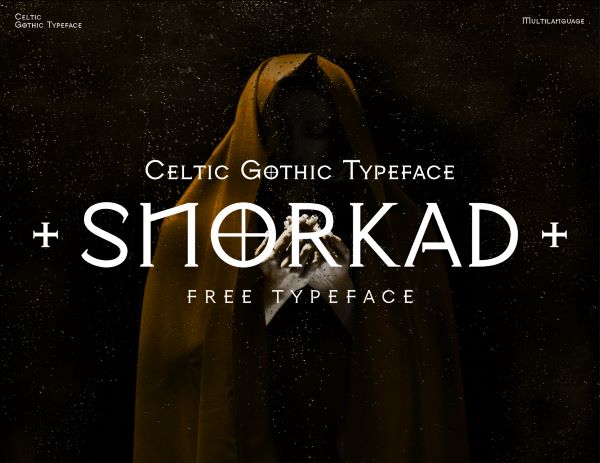
Snorkad Typeface
Snorkad by Leandro Ferreira is a free Celtic font and Gothic font born from a convergence of inspirations — the designer’s admiration for medieval aesthetic, the visual atmosphere of films like The Pope’s Exorcist, and a deep personal affinity for the dark fantasy worlds of Diablo, Doom, and The Elder Scrolls V. Version 2 includes improved kerning. Available free for personal and commercial use via a standard commercial license.